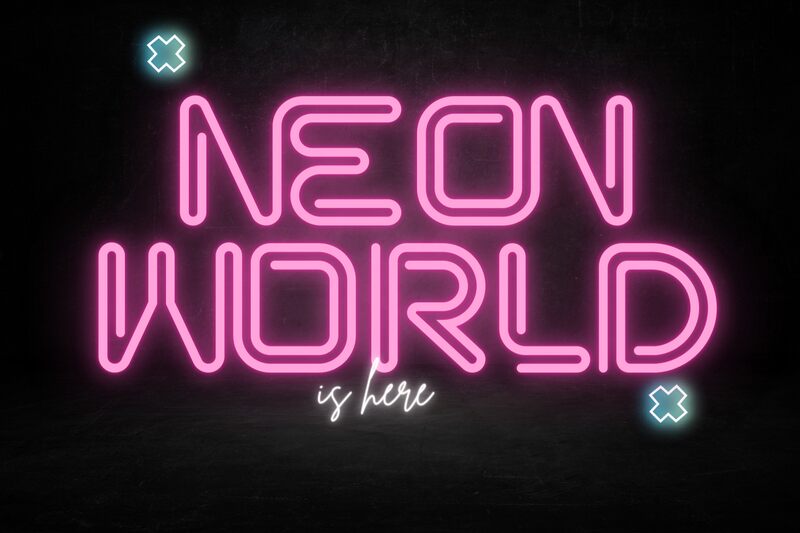
NEON WORLD DEMO Regular
Neon World by 177Studio is a captivating display font that exudes a palpable sense of technological dynamism and futuristic allure. With its vibrant, neon-inspired strokes and sharp, angular features, this font radiates an electric energy that commands attention. The intricate interplay of bold lines and negative space creates a striking visual impact, evoking a sense of cutting-edge modernity and unbridled technological progress.
This font's versatility shines through its ability to seamlessly integrate into a wide range of design contexts, from eye-catching headings and impactful branding to immersive digital interfaces and visually striking advertisements. Neon World's distinct aesthetic lends itself particularly well to projects that seek to convey a sense of futurism, innovation, or a high-tech aesthetic, making it an ideal choice for a diverse array of applications.